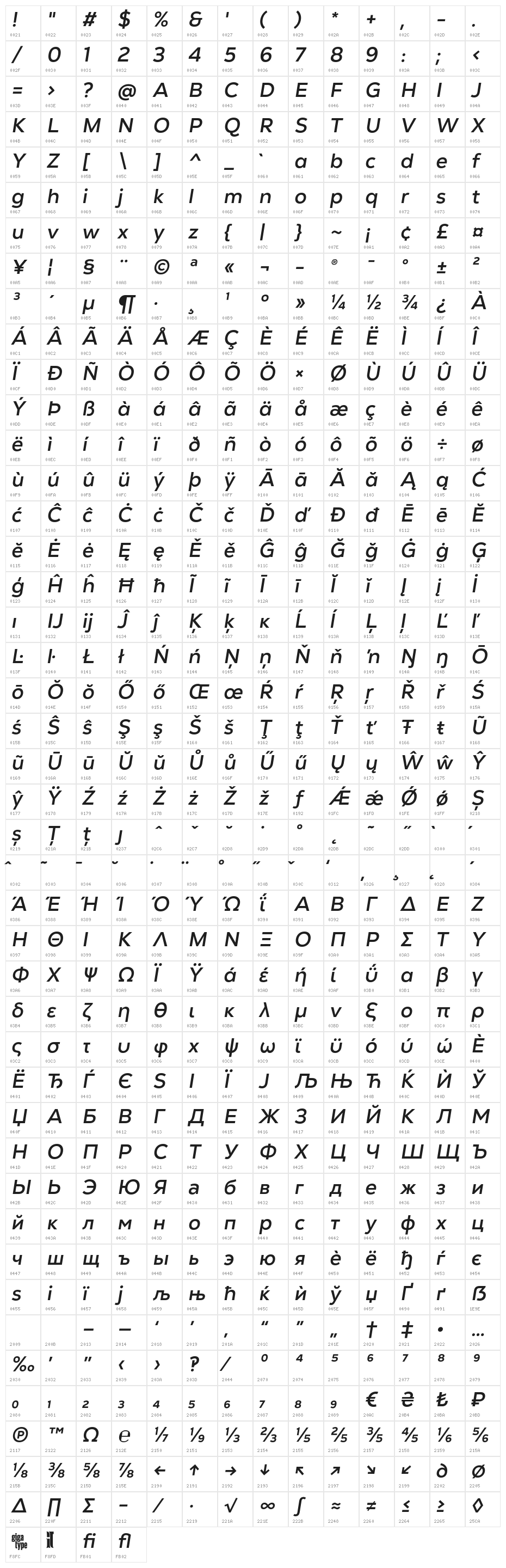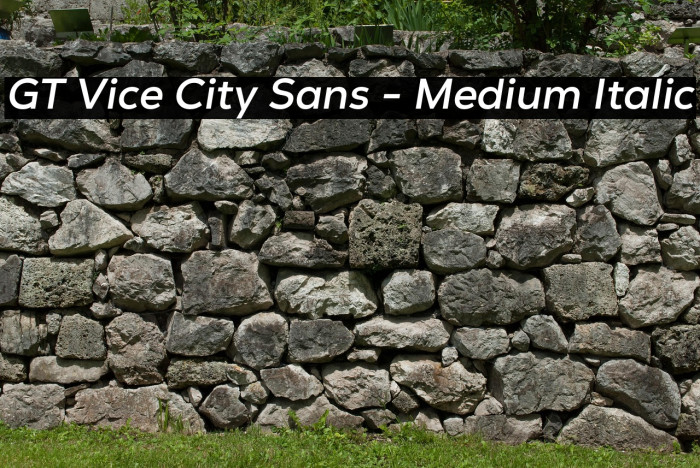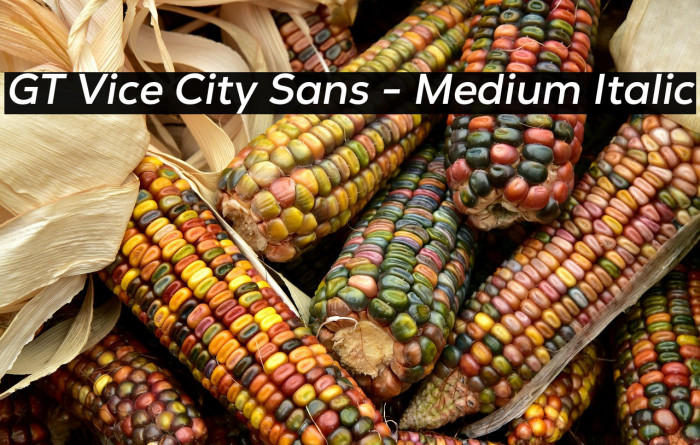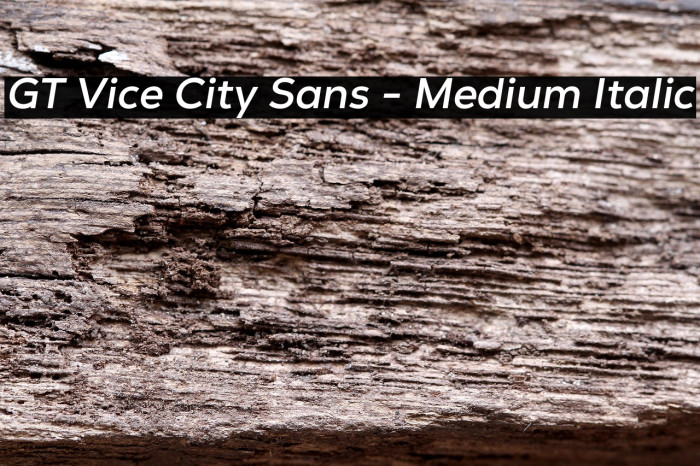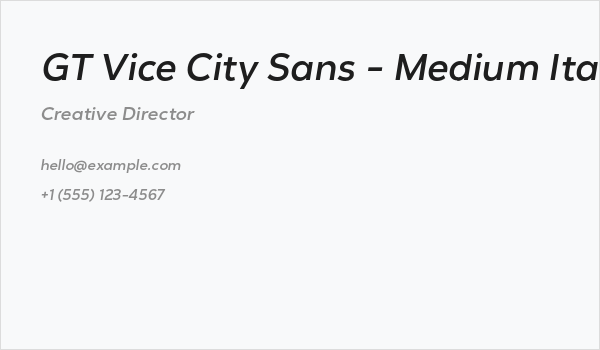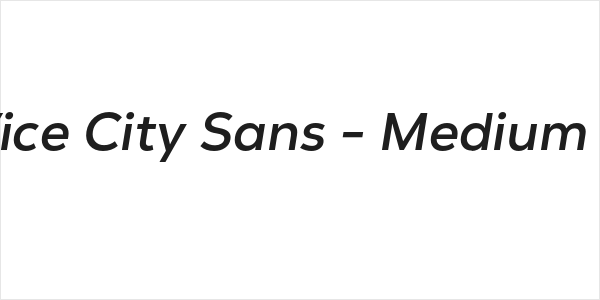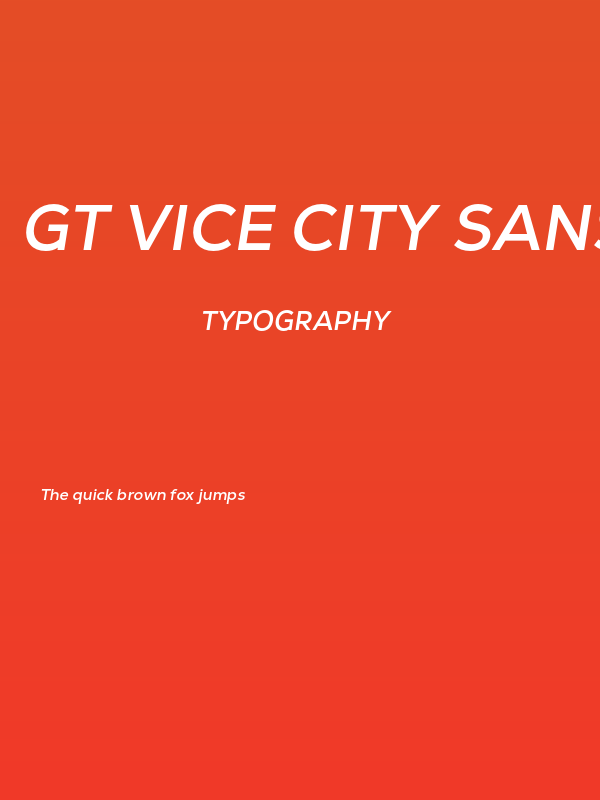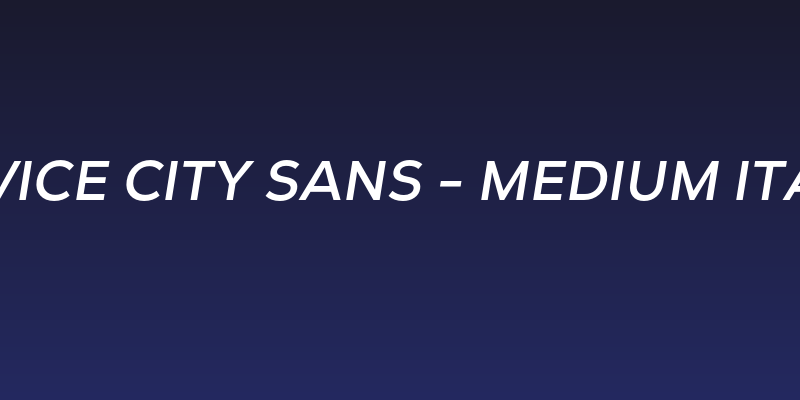
GT Vice City Sans - Medium Italic Font
GT Vice City Sans - Medium Italic Description
A modern sans-serif font with a medium weight and italic style, featuring clean lines and a slightly condensed appearance.